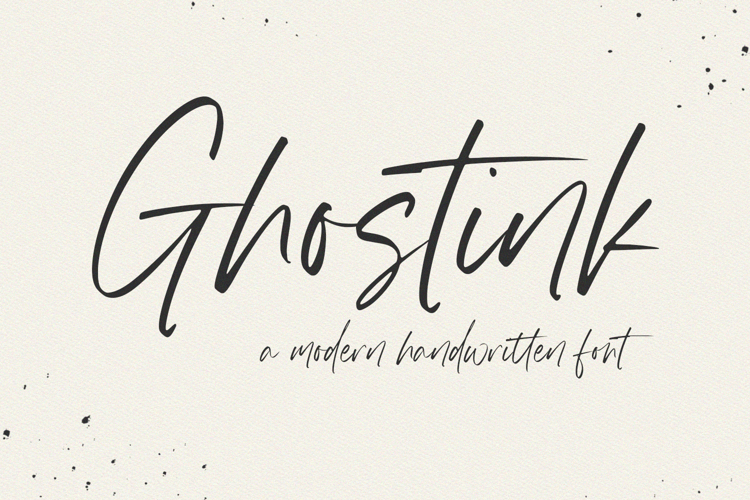
Ghostink Font
About Ghostink Font
More info from Timur type
Gohstink feels equally charming and elegant. It looks stunning on wedding invitations, thank you cards, quotes, greeting cards, logos, business cards and every other design which needs a handwritten touch.